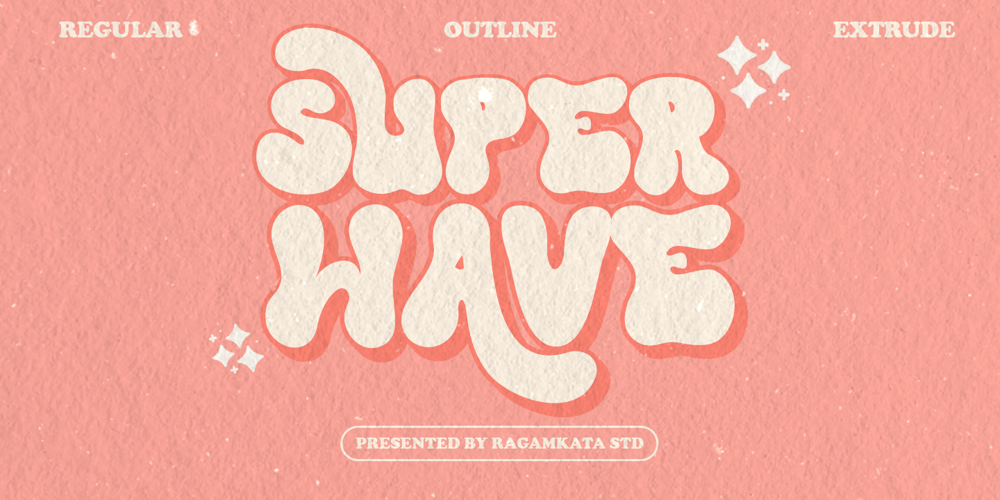
Super Wave Font Family was designed by Sagara Nararya and published by Pandeka Studio. Super Wave contains 3 styles and family package options. New Retro Font Style, Super Wave!Super Wave font is a retro serif and bold display font. You will get three types of fonts in this pack, Regular, Outline and Shadow version. Use this display font to add that special retro touch to any design idea you can think of! With a delightful array of ligatures and alternate characters, this font becomes a creative playground for your projectsFeatures: Super Wave Main Files Has 3 Styles: Regular, Outline and Shadow Accessible in Adobe Illustrator, Adobe Photoshop, Microsoft Word even work on Canva! PUA Encoded Characters Fully accessible without additional design software. Enjoy Designing!Pandeka Studio